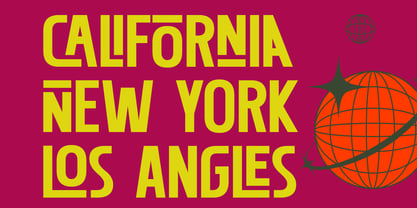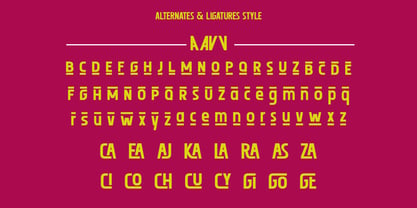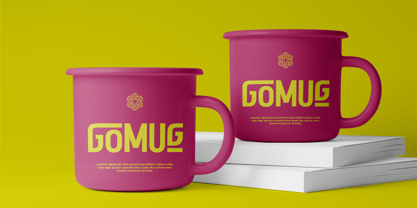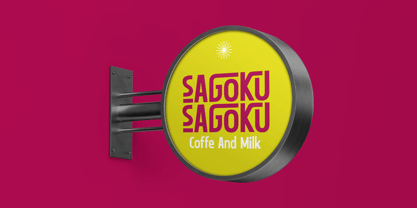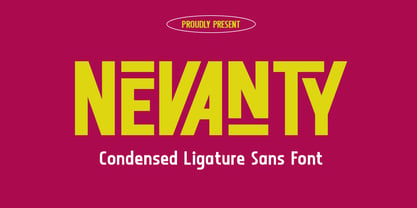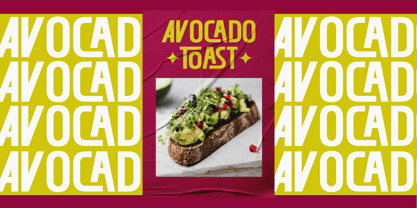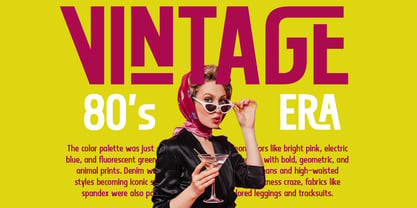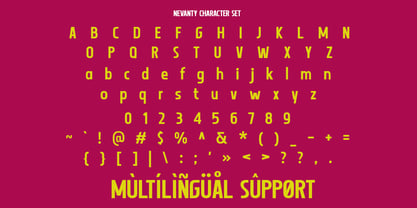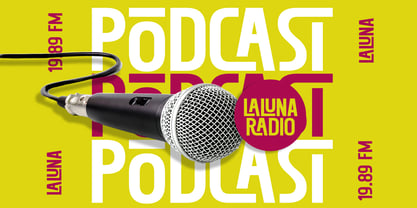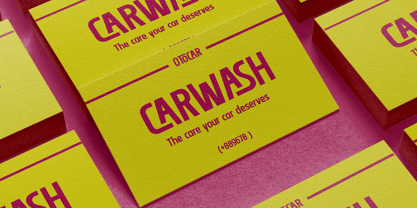
Nevanty
The Nevanty Font Family was designed by Yogiswhara Dio Prakoso Riadi and published by RagamKata. Nevanty contains 2 styles and family package options. More about this family
Nevanty is condensed ligatures sans serif font with cheerful display font combines boldness with a condensed style, making it perfect for adding a touch of personality to your designs. With its friendly sans-serif design and an abundance of ligatures and alternates character, and like a warm hug for your creative projects. Whether you're crafting inviting headlines, quirky logos, or delightful posters, this font will bring joy and charm to everything it touches. Nevanty Included : - Nevanty Regular - Nevanty Italic - Stylistic Ligatures - Alternates Character - Multilingual Support Thanks, Have a wonderful day